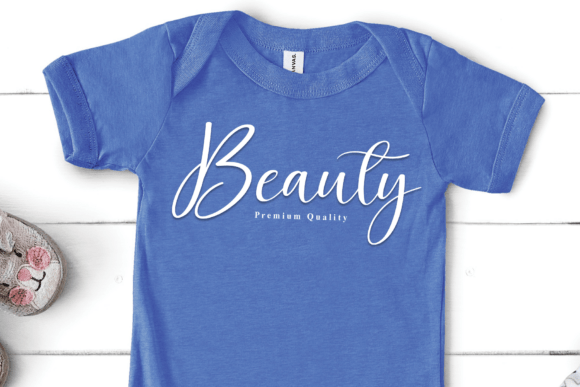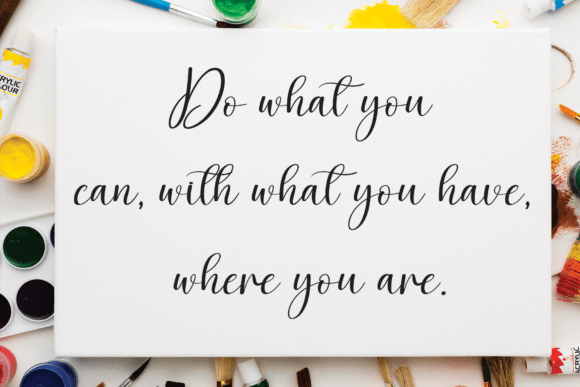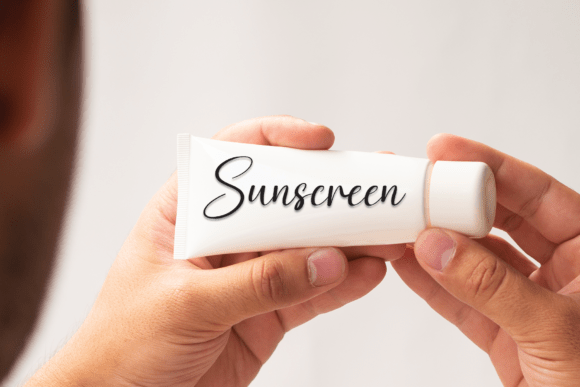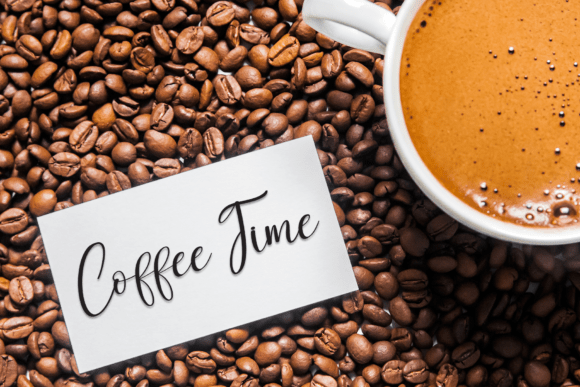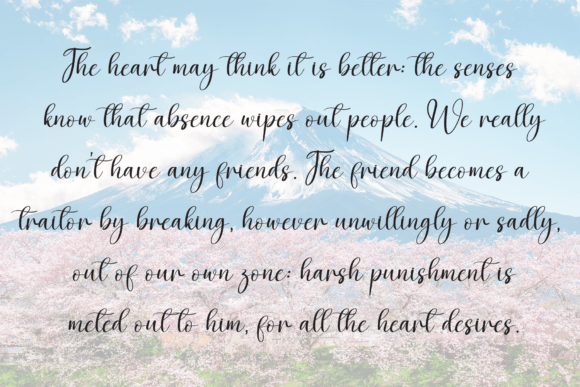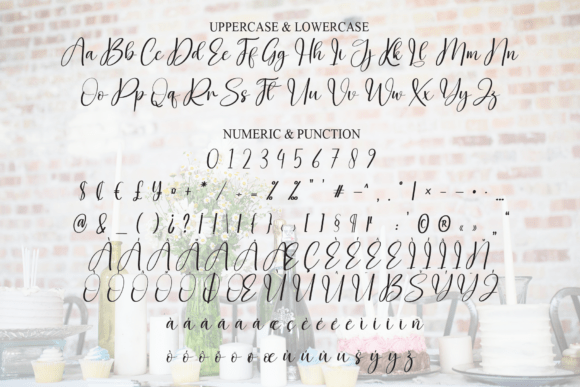
Lighting the Way to Unique Design
Have you ever been brainstorming ideas for a special project, only to have it all come together in a moment of creative clarity? For many designers, it’s that spark of inspiration that drives them to create something truly exceptional. And for those who are always on the lookout for the perfect font to bring their vision to life, we’re excited to introduce the Candle Birthday Font – a stylish handwritten script that exudes elegance and charm.
Perfect for branding, invitations, and stationery, the Candle Birthday Font adds a personal and sophisticated touch to any design. Its smooth curves and natural flow create a timeless, refined look that’s sure to impress. Whether you’re working on a high-end campaign or a special occasion, this font is a valuable addition to any designer’s toolkit.
Candle Birthday Font Key Features
- Unique Characteristics: The Candle Birthday Font features a unique, hand-drawn design with a whimsical and playful feel. It includes a range of special characters, including candles, flowers, and other birthday-themed elements.
Candle Birthday Font Review
I recently had the chance to work with the Candle Birthday Font, and I must say it’s a delightful addition to any design project. ✨ The font’s unique, whimsical design is perfect for creating a festive atmosphere, making it ideal for birthday invitations, party decorations, and other celebratory materials.
The Candle Birthday Font’s strengths lie in its versatility and expressiveness. ✨ It can be used for both digital and print projects, and its various styles and sizes make it suitable for a wide range of applications. The font’s playful, handwritten feel adds a personal touch to any design, making it perfect for creating a unique and memorable experience.
- ⚠️ The font’s expressiveness can sometimes make it difficult to read, especially in smaller sizes or at a distance.
- ⚠️ The font’s unique design may not be suitable for formal or professional projects, as it can come across as too casual or playful.
Overall, I’m impressed with the Candle Birthday Font’s unique design and versatility. While it may have some limitations, it’s perfect for creating a festive and memorable atmosphere in any design project. I would definitely recommend it for anyone looking to add a touch of whimsy and personality to their designs.
The Candle Birthday Font is ideal for:
- Birthday invitations and party decorations
- Social media graphics and party promotions
- Custom gift tags and party favors
- Party banners and decorations